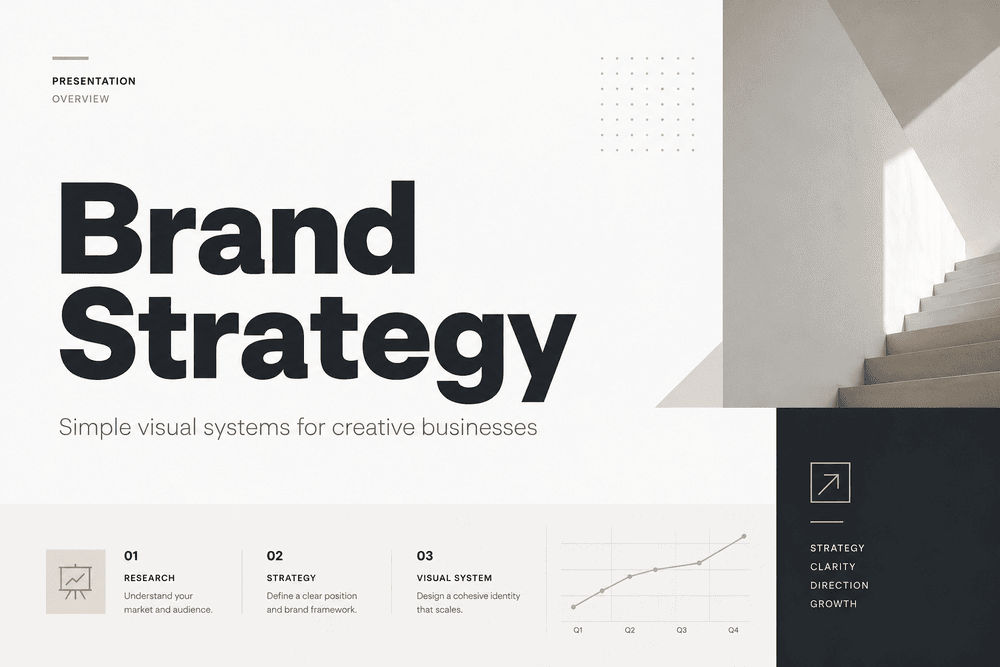
Font Pairing Ideas for Clean, Stylish, and Professional Designs
Choosing fonts can feel simple at first.
You pick one font for the title.
Another one for the body text.
Maybe a third one for a quote, logo, or accent.
Then suddenly, the design feels messy.
Not ugly. Not broken. Just… not quite right.
That is where font pairing ideas become useful. A good font pairing can make your design feel intentional, polished, and easy to read. A weak pairing can make even a beautiful layout feel confusing.
I like to think of font pairing as styling an outfit. One font may be the statement piece. Another font keeps everything balanced. The goal is not to make every font compete for attention. The goal is to create a clear visual conversation.
In this guide, you will find practical font pairing ideas for clean, stylish, and professional designs. You can use them for logos, brand kits, websites, packaging, social media graphics, invitations, posters, printables, Canva templates, and digital products.
What Is Font Pairing?
Font pairing is the process of combining two or more fonts in one design so they look good together and serve different roles.
Usually, one font is used for the headline or main focus. Another font is used for body text, subtitles, labels, or supporting details.
For example:
• A bold serif font for a luxury brand headline
• A clean sans serif font for the product description
• A soft script font for a small accent phrase
Each font has a job.
That is the key.
Font pairing is not just about choosing pretty fonts. It is about building hierarchy, mood, readability, and brand personality.
Why Font Pairing Matters in Design
Fonts carry emotion.
A modern sans serif font can feel clean, simple, and confident.
A classic serif font can feel elegant, editorial, or trustworthy.
A handwritten font can feel warm, personal, and creative.
A bold display font can feel expressive, fun, or high-impact.
When you combine fonts well, your design becomes easier to understand. The viewer knows where to look first, what to read next, and how to feel about the message.
Good font pairing helps you:
• Create clear visual hierarchy
• Make your design look more professional
• Improve readability
• Build a stronger brand identity
• Add personality without making the layout messy
• Make templates, logos, and graphics feel more premium
This is especially important if you sell digital products, create brand assets, design social media templates, or build visual content for clients.
A font pairing can quietly decide whether your design feels handmade, premium, playful, editorial, vintage, minimal, bold, or luxurious.
The Simple Rule I Use: One Font Leads, One Font Supports
Before you choose fonts, decide their roles.
Do not start with, “Which two fonts look cute together?”
Start with, “What does each font need to do?”
A simple font pairing system usually looks like this:
1. The Hero Font
This is the font people notice first.
Use it for:
• Logo text
• Main headline
• Poster title
• Product name
• Quote focus
• Cover title
• Main callout
The hero font can be expressive. It can have style, personality, contrast, curves, texture, or a strong shape.
2. The Support Font
This font keeps the design readable.
Use it for:
• Body text
• Subheadings
• Product descriptions
• Captions
• Details
• Navigation
• Labels
The support font should not fight the hero font. It should make the design feel grounded.
3. The Accent Font
This one is optional.
Use it carefully for:
• Small phrases
• Dates
• Signatures
• Decorative words
• Short labels
• Emotional details
An accent font should be used in small doses. Too much accent text can make the design look crowded.
Best Font Pairing Ideas for Clean and Professional Designs
Below are practical font pairing ideas you can use as starting points. You can adapt them depending on your project, brand style, and audience.
1. Elegant Serif + Clean Sans Serif
This is one of the safest and most timeless font pairings.
Use a serif font for the headline and a sans serif font for the body text. The serif brings elegance. The sans serif keeps everything clean and readable.
This pairing works beautifully for:
• Brand identity
• Editorial layouts